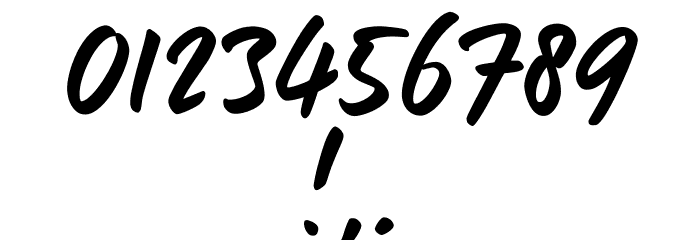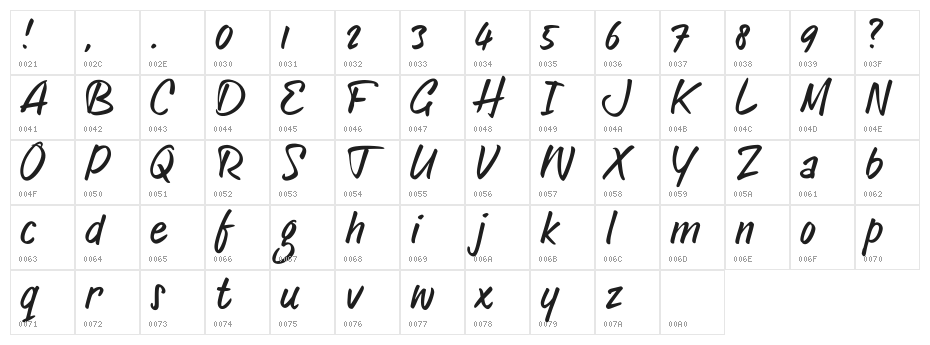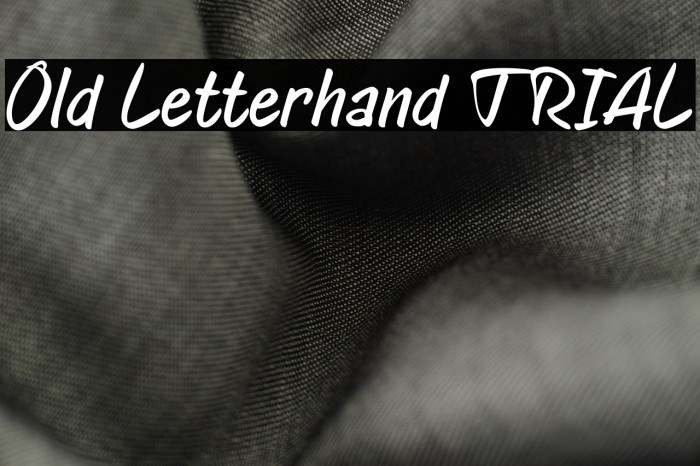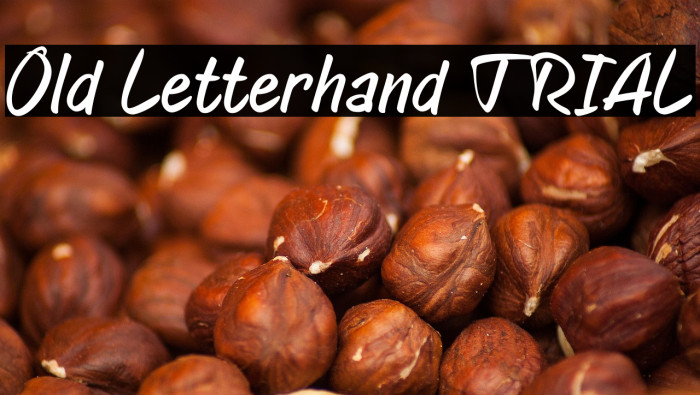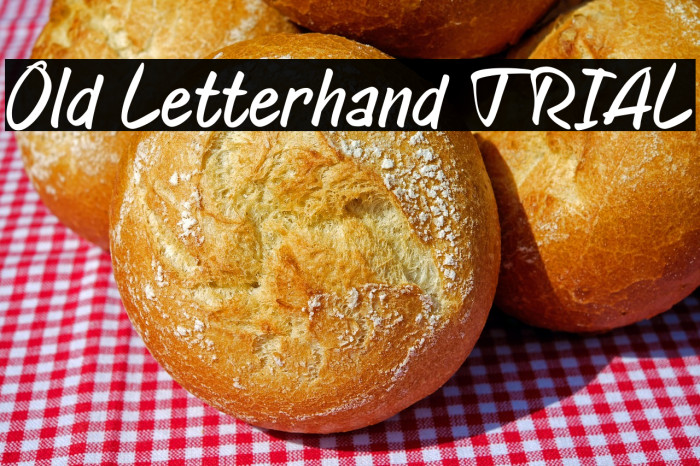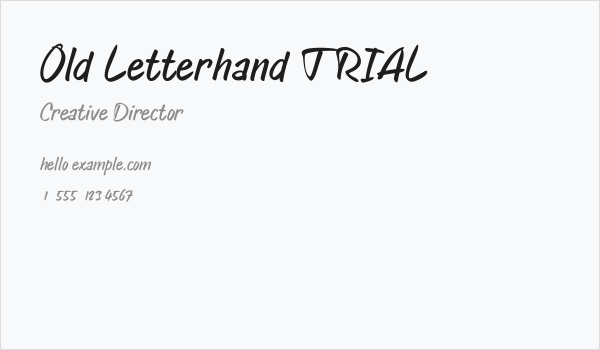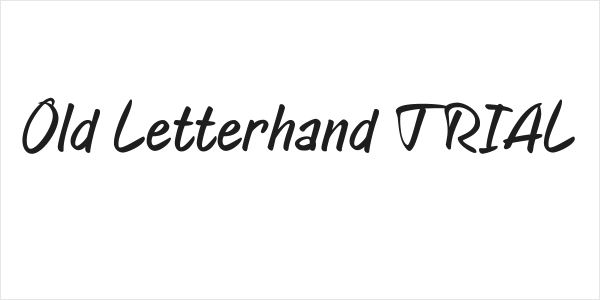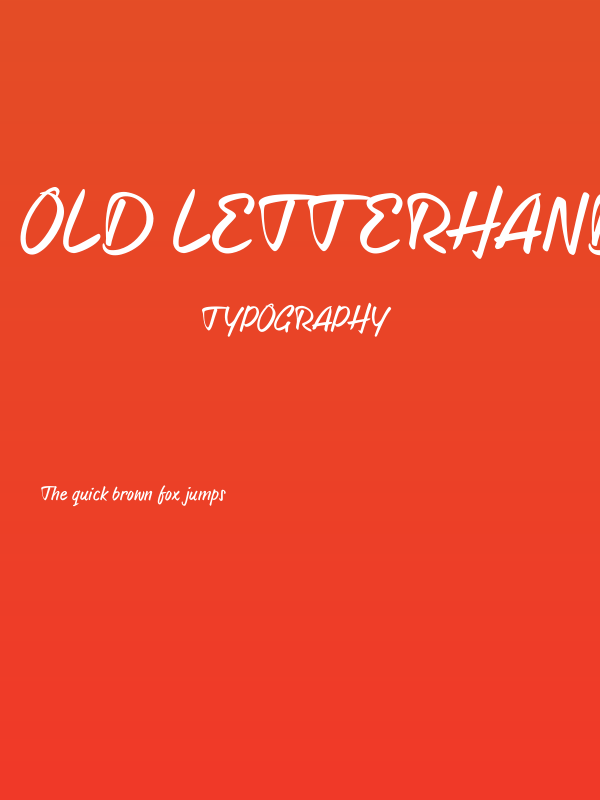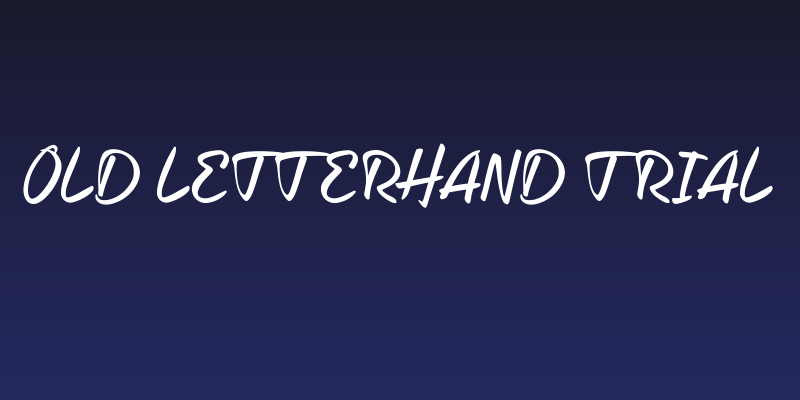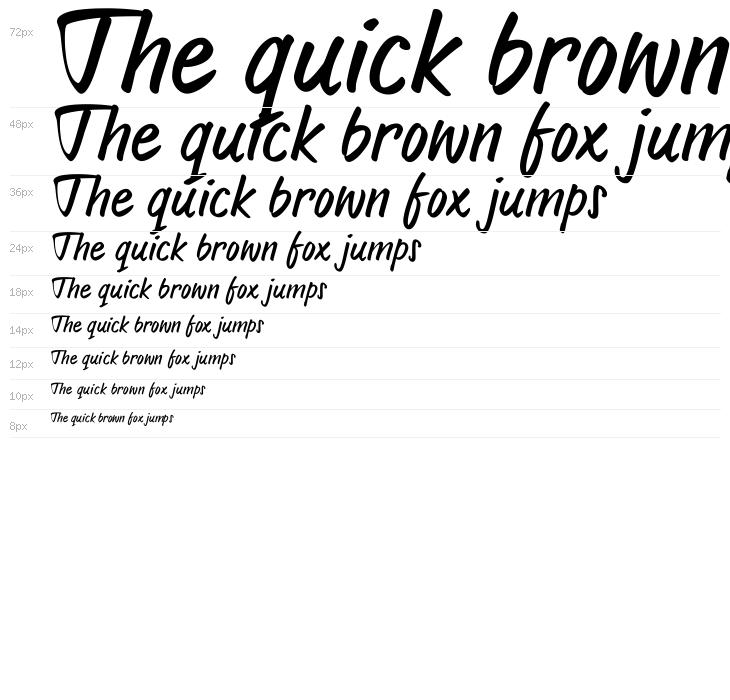
Old Letterhand TRIAL Font
Old Letterhand TRIAL Description
This font exudes a handwritten charm with its fluid, cursive style that mimics the elegance of traditional penmanship. The strokes are smooth and connected, giving it a natural flow that is both inviting and personal. The uppercase letters are slightly more formal, while the lowercase letters maintain a casual, approachable feel. The numerals and special characters are consistent with the overall style, ensuring a cohesive look across all text. This font is perfect for projects that require a personal touch, such as invitations, greeting cards, or branding materials that aim to convey warmth and authenticity.
| Proposed Projects | Ideal for invitations, greeting cards, personal branding, and any project requiring a warm, authentic feel. |